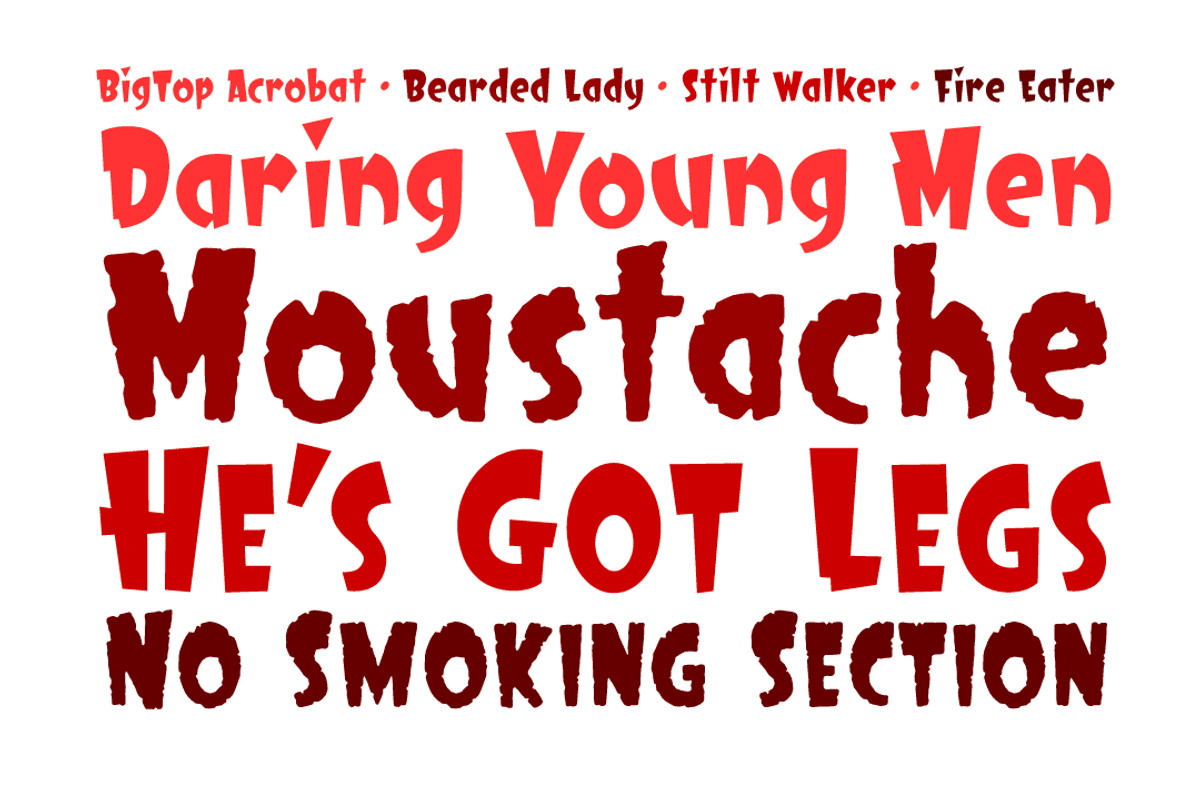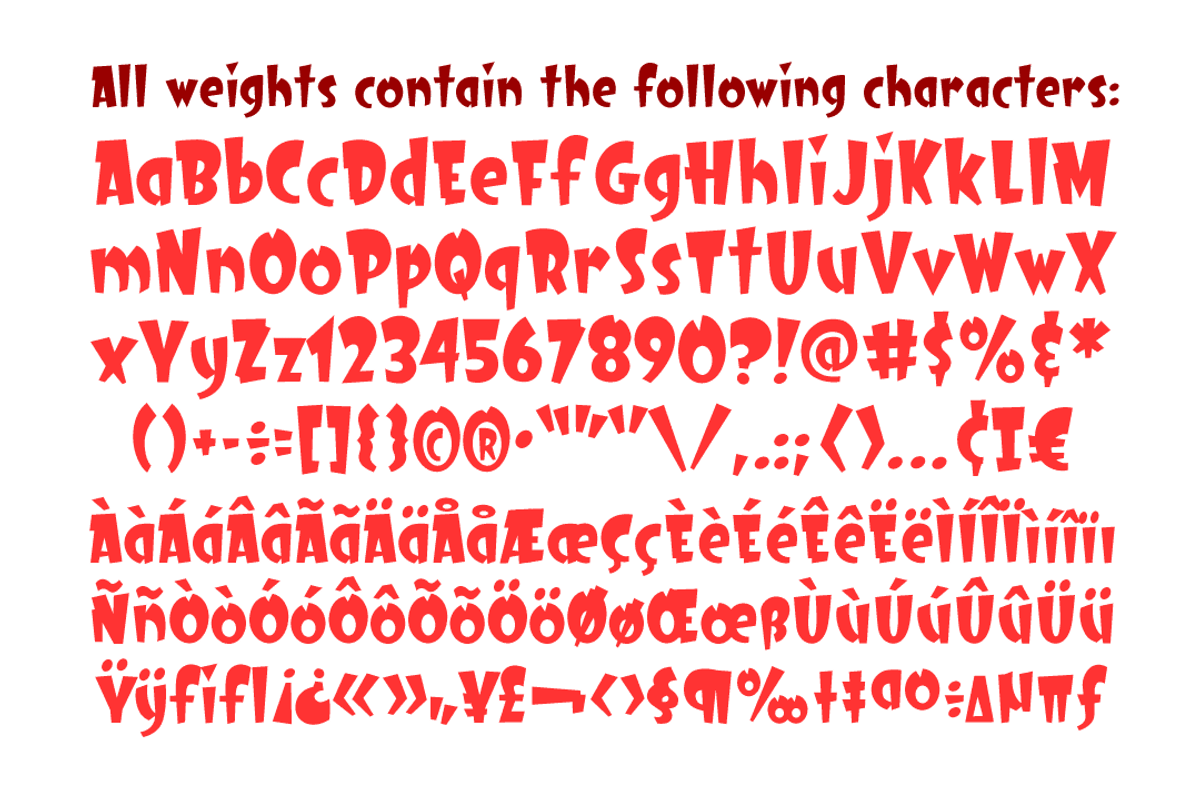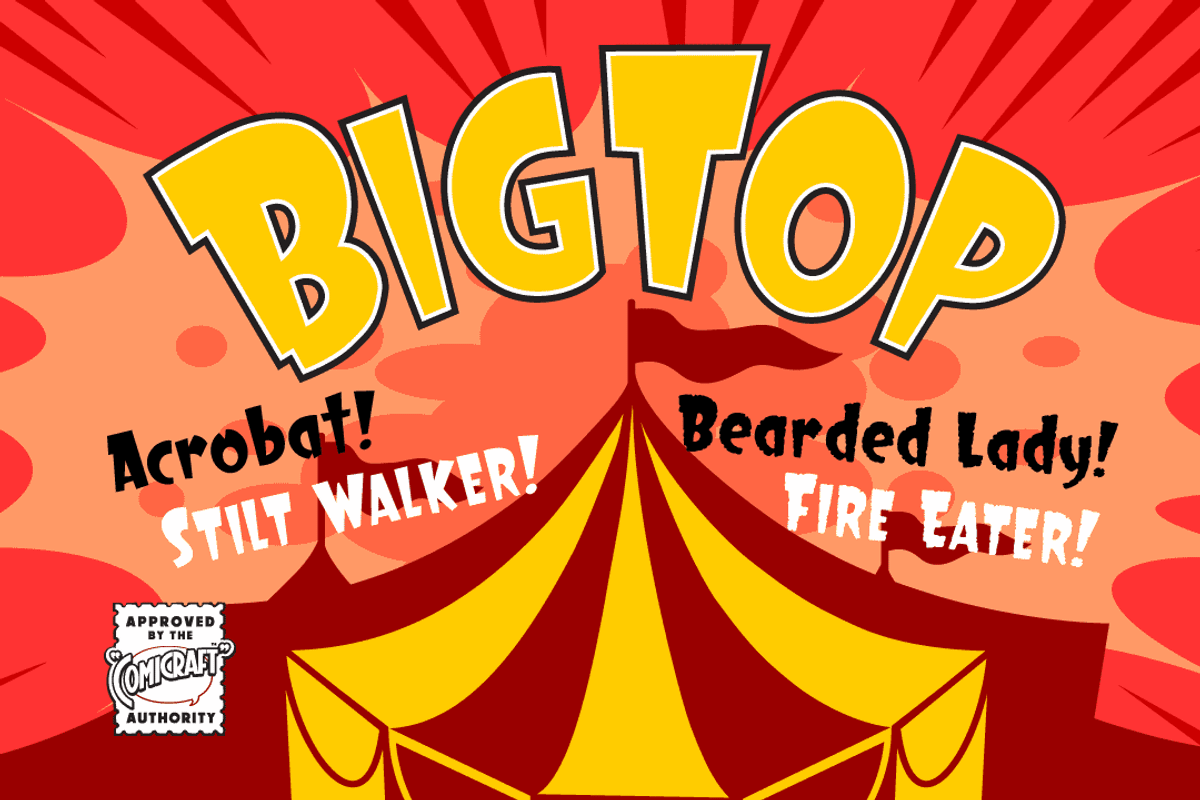
Big Top
Step Right Up, the Font Circus is in town and ready to reveal our stupendous new tent-pole feature! Step inside for the best seat in the house. Ringmaster Roshell Beauregard dons his Big Top Hat especially for this occasion and promises us that Clowntime ain't over until the Bearded Lady takes a custard pie in the face. Our Big Top Bonanza performance begins with sideshow attractions and distractions, high-wire acrobats and low-cost rubber band guns. Can you smell the greasepaint and hear the roar of the crowd already...?
Big Top by Comicraft Fonts fits naturally into Branding, posters, packaging, typography.